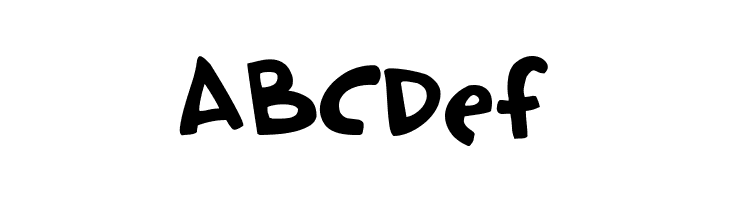
Hornstick Regular Font
- Font: Hornstick Regular
( Fonts by Uddi Uddi )
A playful, hand-drawn font with bold, irregular strokes and a whimsical style.